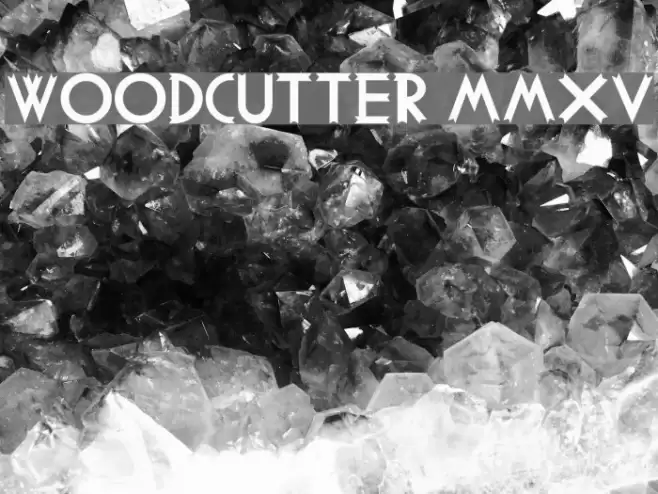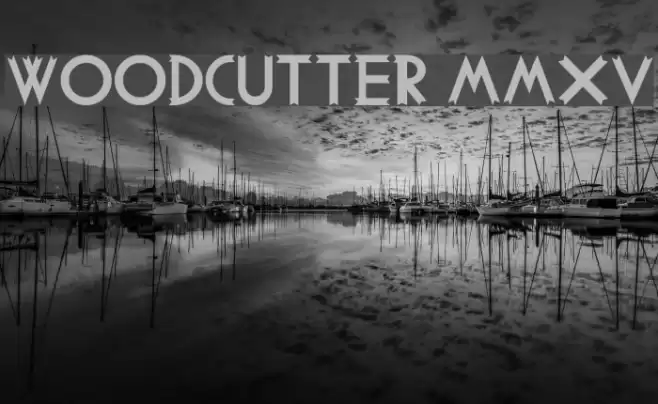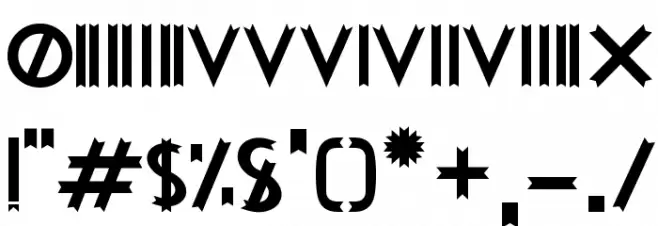
Woodcutter MMXV Font
Woodcutter MMXV Description
This font features a bold and striking design with sharp, angular edges that give it a distinctive, edgy appearance. The characters are crafted with a high level of contrast, emphasizing the boldness of the strokes. The unique cut-out details in each letter add a dynamic and aggressive feel, making it stand out in any design. The uppercase and lowercase letters maintain a consistent style, while the numerals and special characters complement the overall aesthetic. This font is perfect for projects that require a strong visual impact.
A bold, angular font with sharp edges and high contrast, ideal for impactful designs from Uncategorized fonts.
- Proposed Projects: This font is well-suited for branding, posters, album covers, and any project that requires a bold and edgy look.
- Overall Style: Modern, Decorative